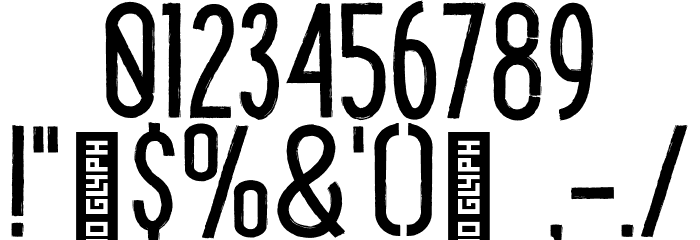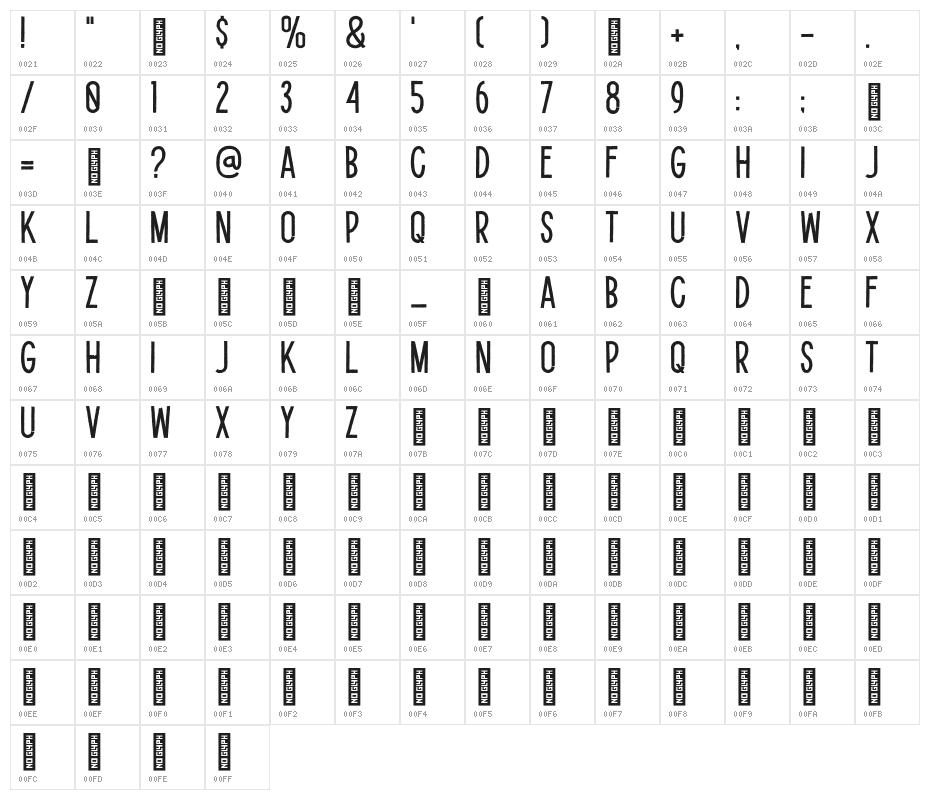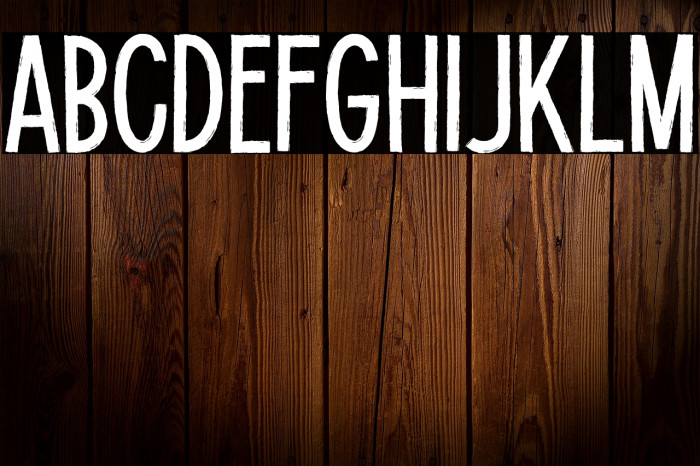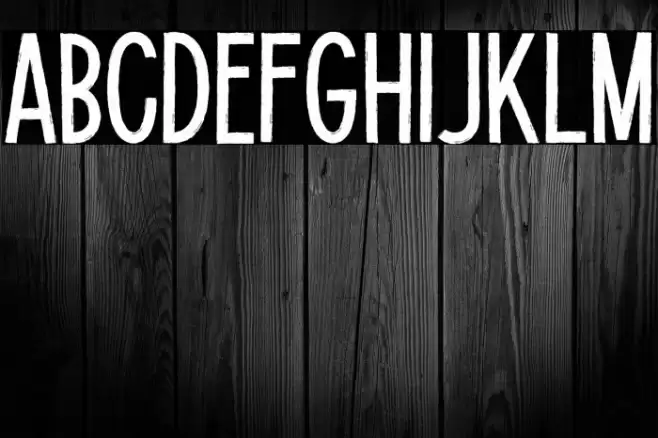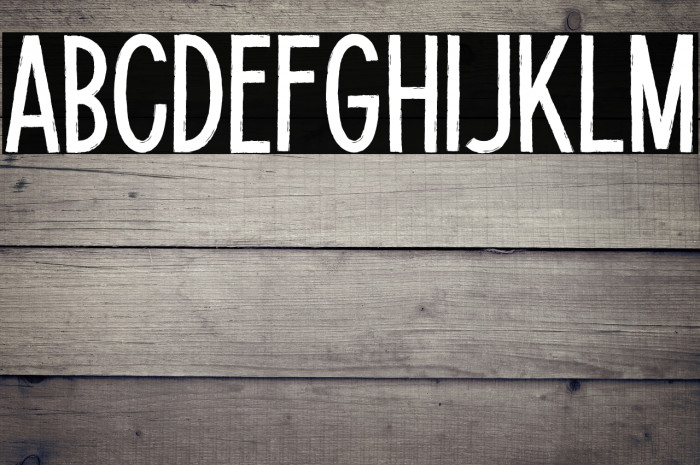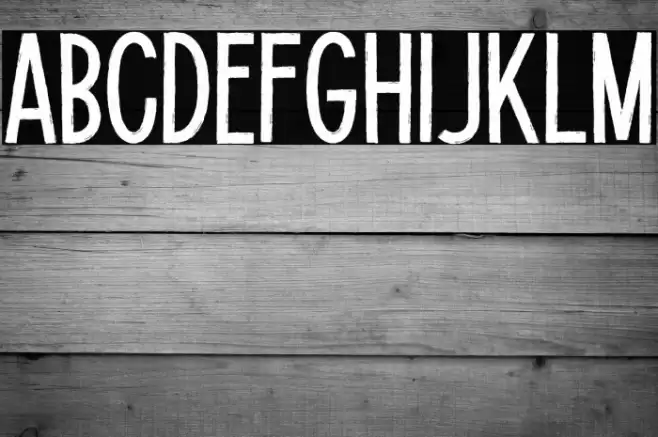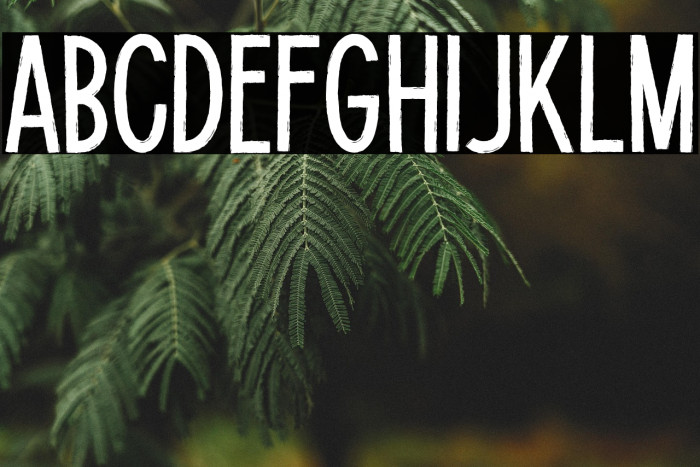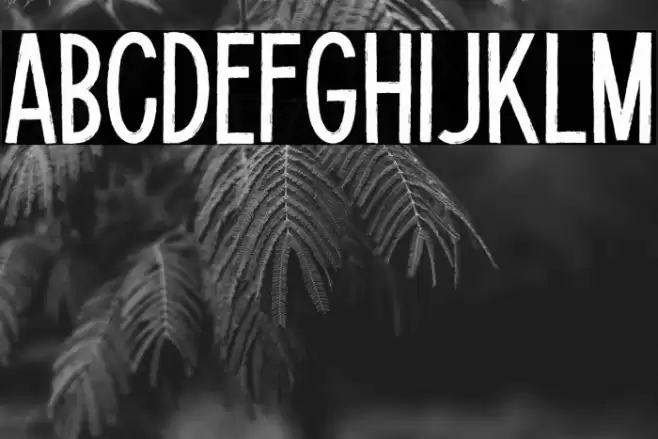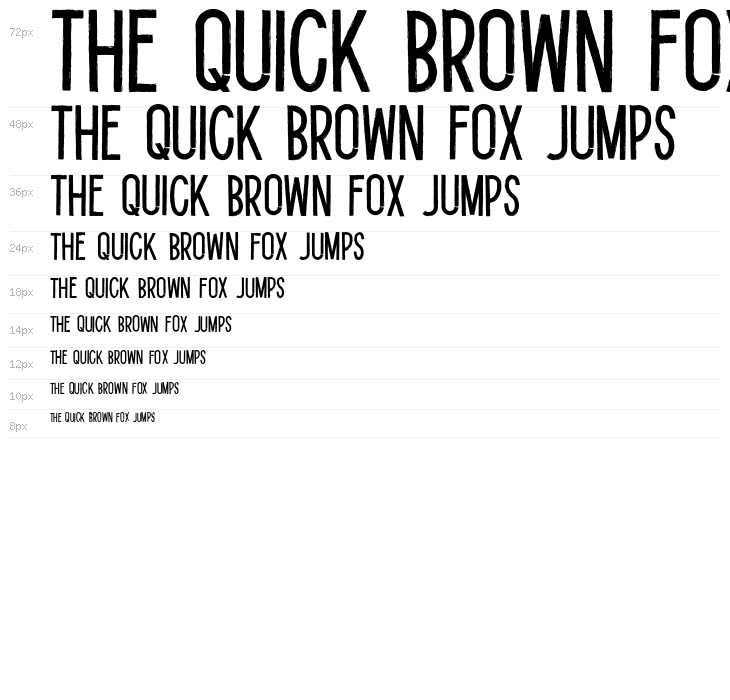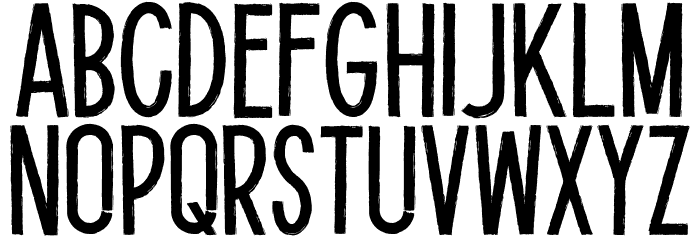
Potato Lite Font
Potato Lite Description
This font features a bold, hand-drawn aesthetic with a slightly rough texture, giving it a rustic and organic feel. The uppercase letters are tall and narrow, with consistent stroke widths that create a uniform appearance. The lowercase letters maintain the same style, ensuring readability while preserving the unique character of the font. The numerals are distinct and align well with the overall design, making them suitable for various applications. Special characters are included, maintaining the same stylistic elements, which enhances the versatility of the font. Its handcrafted look makes it ideal for projects that require a personal touch or an artisanal vibe.
| Overall Style | Rustic, Handcrafted |
| Proposed Projects | Ideal for branding, packaging, posters, and any project seeking a handcrafted, artisanal touch. |